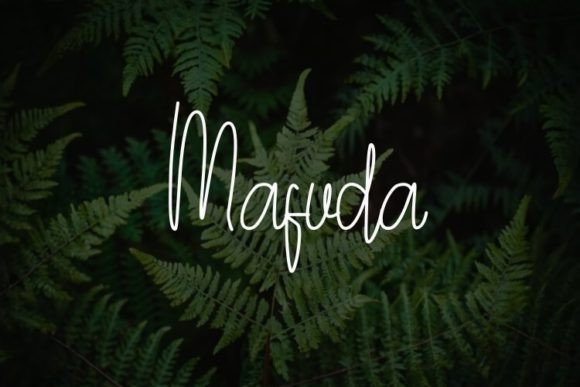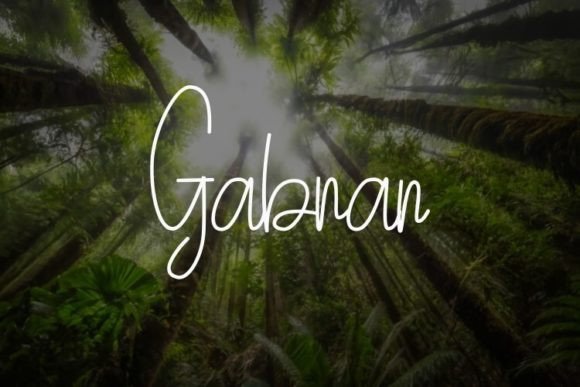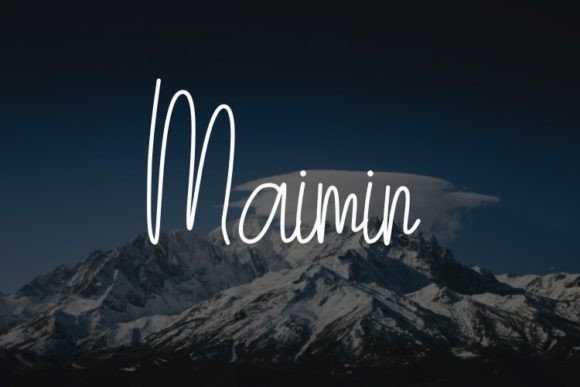
Introducing Gapranis Font: Elevate Your Designs with Timeless Elegance
In the world of typography, fonts play a crucial role in conveying the message and aesthetic of a design. For designers and crafters seeking to add a touch of sophistication and class to their projects, Gapranis Font is an exceptional choice. This trendy handwritten font boasts a contemporary atmosphere and impeccable form, drawing inspiration from timeless classic calligraphy.
The Essence of Gapranis Font
Gapranis Font is a meticulously crafted typeface that embodies the perfect blend of modernity and tradition. Its elegant strokes and refined letterforms evoke a sense of luxury and refinement, making it an ideal selection for a wide range of design applications. Whether you’re working on a branding project, packaging design, or digital content, Gapranis Font is sure to elevate your work to new heights.
Key Features of Gapranis Font
- Trendy and Contemporary: Gapranis Font features a modern and stylish design that will add a fresh touch to your projects.
- Handwritten Elegance: The font’s handwritten nature gives it a personal and unique feel, perfect for designs that require a touch of personality.
- Inspired by Classic Calligraphy: Gapranis Font draws inspiration from traditional calligraphy, ensuring a level of sophistication and refinement.
- Impeccable Form: The font’s precise and clean lines make it highly legible and versatile for various design applications.
Design Applications for Gapranis Font
Gapranis Font’s versatility makes it suitable for a wide range of design projects, including:
- Branding and Logo Design: Create a lasting impression with a custom logo that exudes elegance and sophistication.
- Packaging Design: Add a touch of luxury to your product packaging and make it stand out on store shelves.
- Digital Content: Elevate your website, social media, or blog with a refined and modern typography.
- Stationery and Print Materials: Create stunning business cards, letterheads, and brochures that showcase your brand’s personality.
Tips for Using Gapranis Font Effectively
To get the most out of Gapranis Font, consider the following tips:
- Pair with Neutral Backgrounds: Allow Gapranis Font to take center stage by pairing it with neutral backgrounds that won’t compete for attention.
- Experiment with Colors: Try out different color schemes to find the perfect combination that complements your design and brand identity.
- Play with Font Sizes: Use varying font sizes to create visual hierarchy and add depth to your design.
Gapranis Font is a stunning addition to any designer’s toolkit. Its unique blend of modernity and classic elegance makes it an excellent choice for a wide range of design applications. By incorporating Gapranis Font into your projects, you’ll be able to add a touch of sophistication and refinement that will leave a lasting impression on your audience. So why wait? Discover the world of possibilities with Gapranis Font and take your designs to new heights.